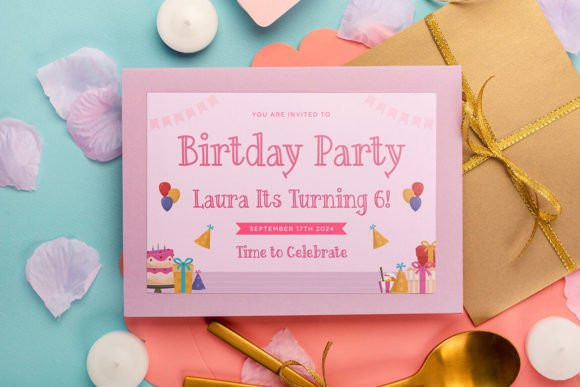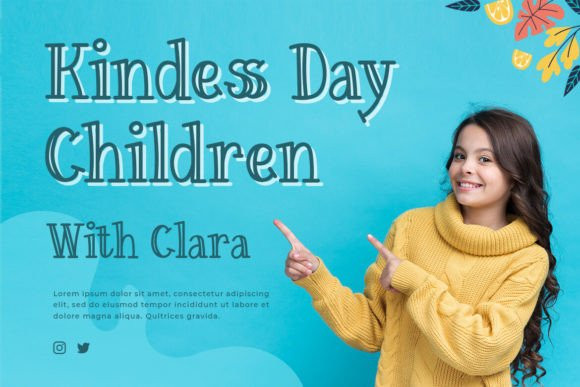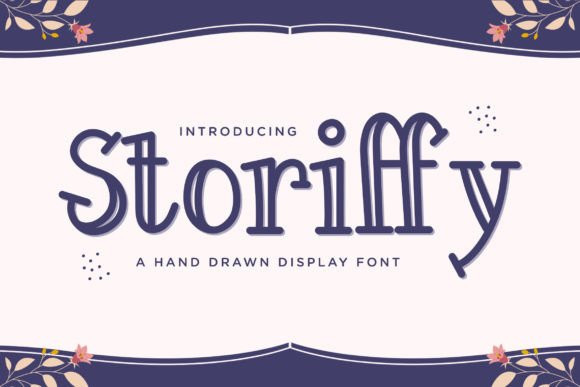
Storiffy Font
Storiffy Font – a hand-drawn display font that weaves stories into your designs! Embrace the versatility of “Storiffy” as it effortlessly enhances your designs. Whether you’re crafting enchanting invitations, imaginative illustrations, captivating headlines, or charming social media graphics, this font will captivate your audience with its hand-drawn and story-driven style